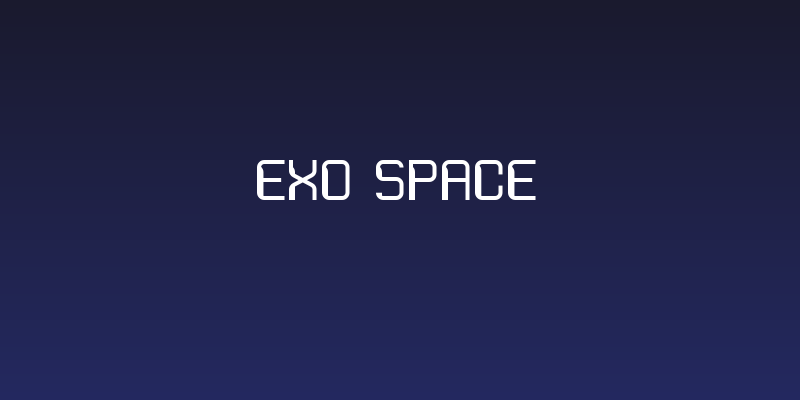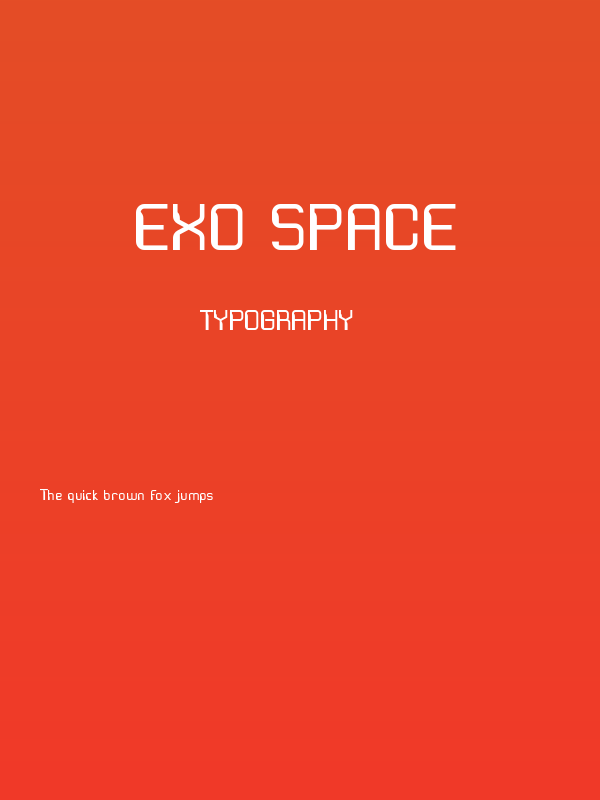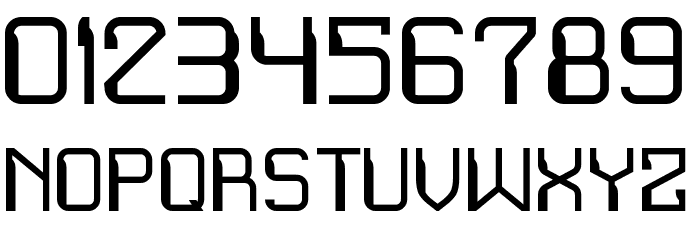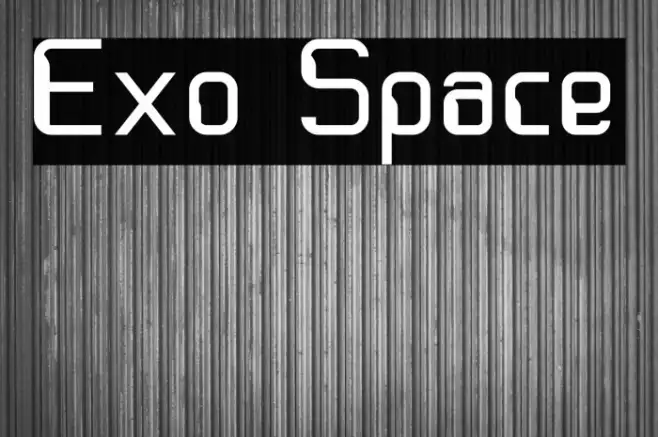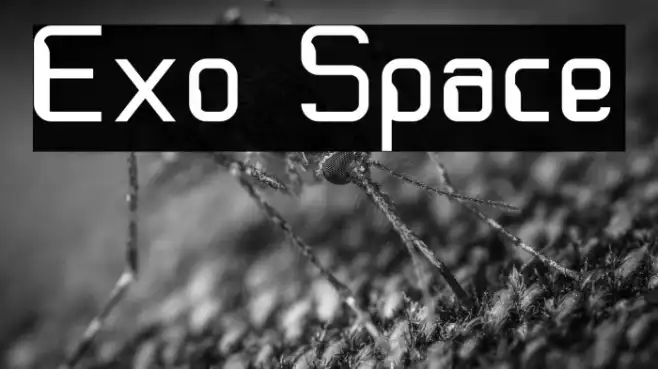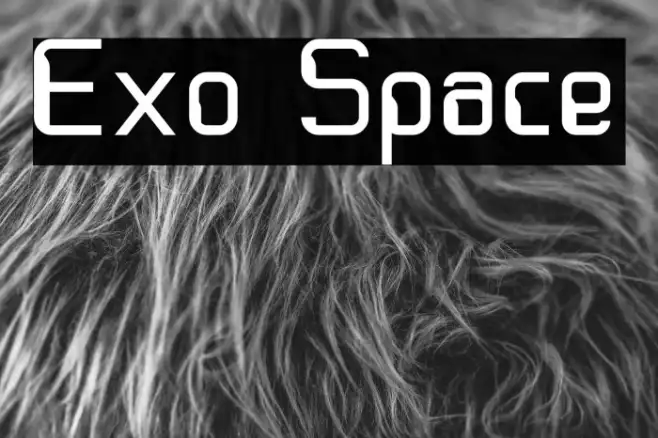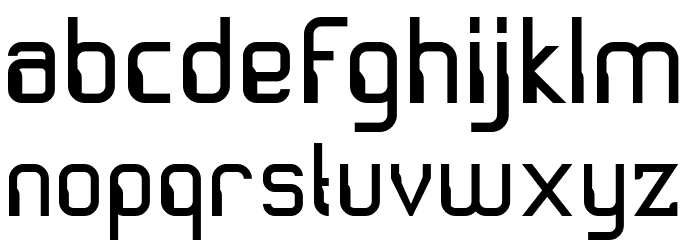
Exo Space Font
Exo Space Description
This font features a futuristic and geometric design, characterized by its clean lines and angular shapes. The uppercase letters are bold and structured, with a consistent height and width that convey a sense of modernity and precision. The lowercase letters maintain the geometric theme, offering a harmonious balance between curves and straight lines. Numbers are designed with the same attention to detail, ensuring readability and style. The special characters complement the overall aesthetic, making this font suitable for a variety of digital and print applications. Its unique style is ideal for projects that require a modern and tech-savvy appearance.
| Use Case | Headlines, Logos, Digital Interfaces |
| Proposed Projects | Ideal for technology branding, sci-fi movie posters, video game interfaces, and modern web design. |